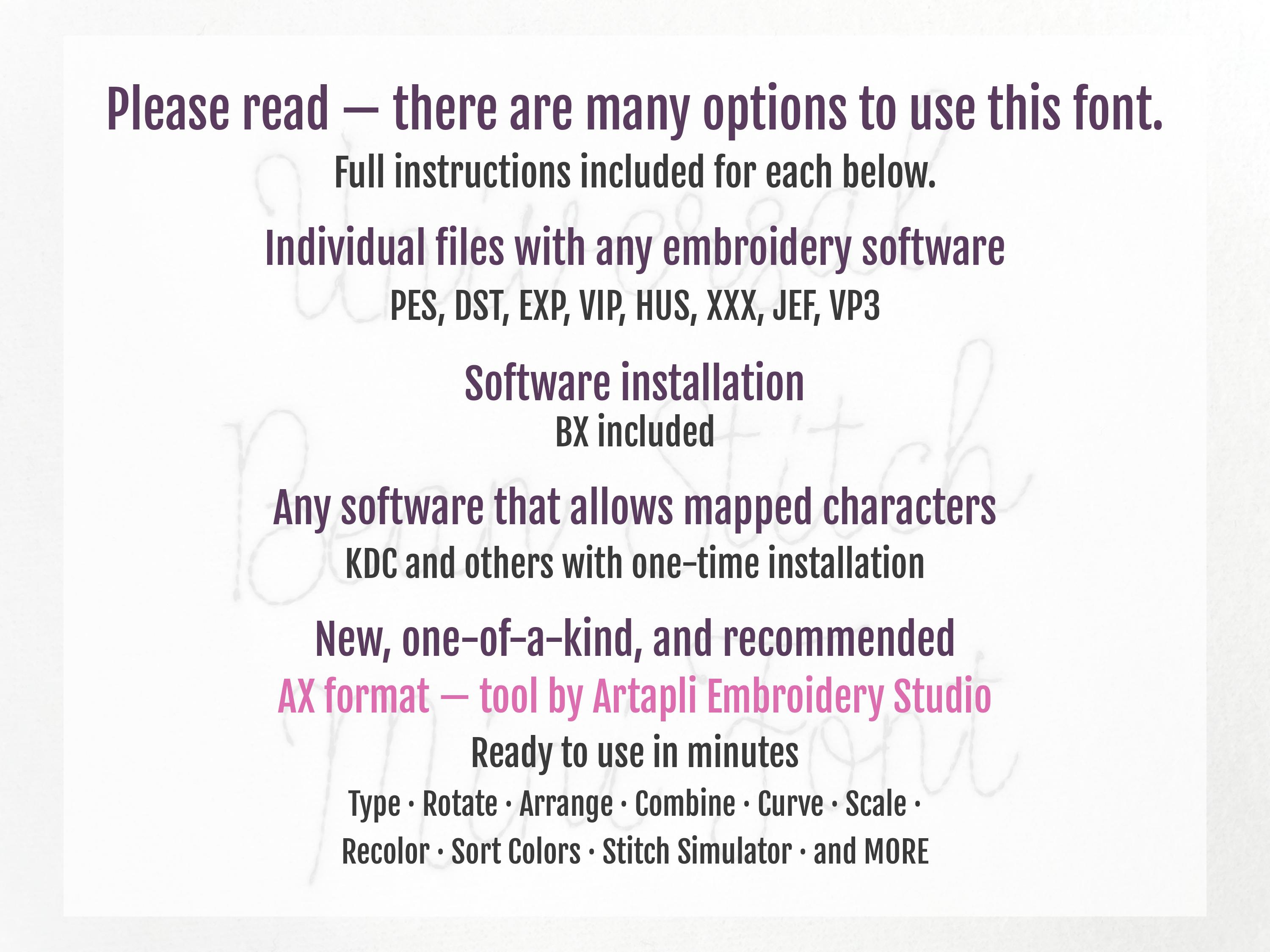
Handwritten Line FONT quick light bean stitch machine embroidery designs script alphabet Monogram letters assorted sizes 1 up to 3 inch, and BX included
Whole alphabet Aa-Zz uppercase and lowercase letters, numbers 0-9, and punctuation.